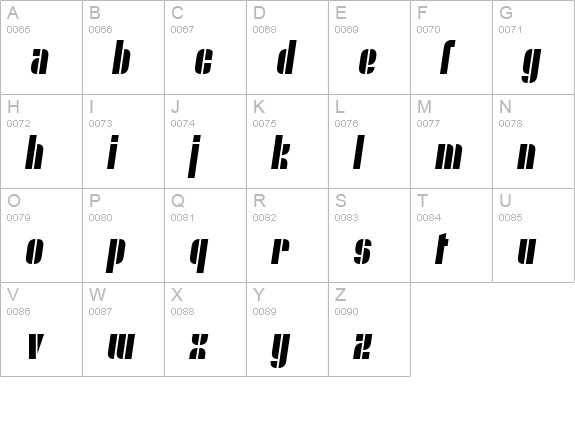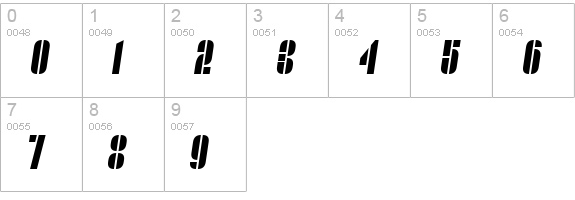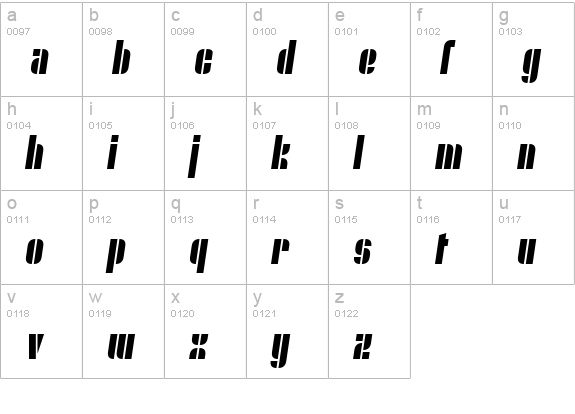
Introducing Nyamomobile font, a versatile and modern typeface designed to bring a touch of sophistication to your projects. With its clean lines and sleek appearance, Nyamomobile is perfect for a wide range of design applications, from branding to editorial design. This unique font offers a contemporary look that is both eye-catching and easy to read, making it ideal for both digital and print projects. Its bold style and elegant curves will add a touch of class to any design, while its versatility allows it to adapt to various design aesthetics. And the best part? Nyamomobile font is completely free to download at FontsMarket.com! Whether you're a graphic designer, web developer, or just love experimenting with different fonts, Nyamomobile is the perfect addition to your font collection. Download it today and elevate your designs with this stunning typeface.